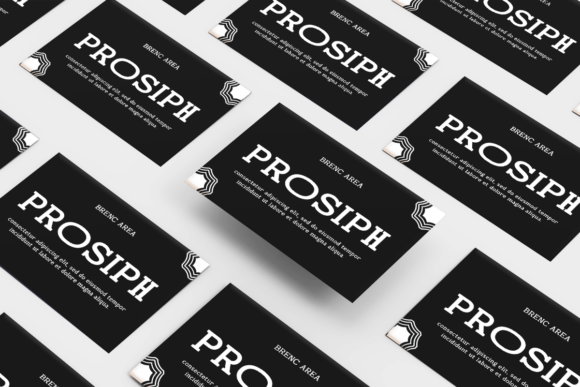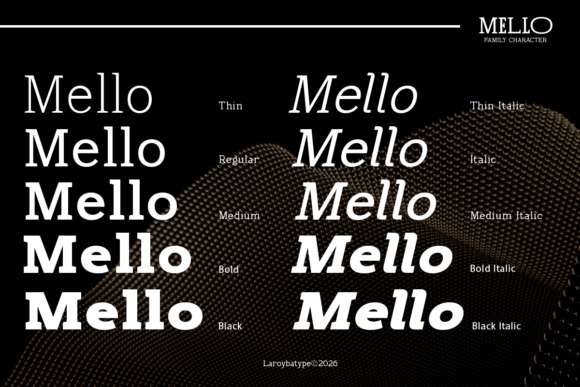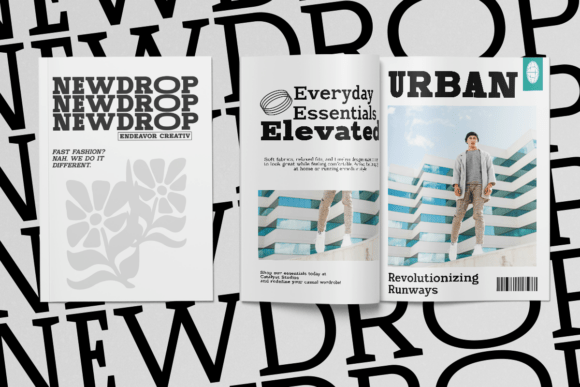
Introduction to Mello Serif Font
You know that moment when a design project clicks into place, and everything feels just right? For many designers, it’s the perfect combination of typography, color, and composition that makes a project truly shine. For those looking to elevate their creative project with high-quality typography, we’re excited to introduce Mello Serif Font, a stunning serif font family that’s about to become your new go-to design resource.
With its clean structure and beautiful contrast, Mello Serif Font is the perfect choice for designers seeking to create high-end visuals. Whether you’re working on a logo, magazine layout, or social media content, this elegant serif font family will give your designs a modern yet timeless feel. Plus, with multiple weights and italic styles included, you’ll have full creative control to build stunning typography effortlessly. And the best part? You can download Mello Serif Font for free, making it an invaluable addition to your design arsenal.
As a valuable resource for designers, Mello Serif Font offers a transparent background and high-quality design that’s sure to elevate any creative project. Whether you’re a seasoned pro or just starting out, this beautiful font family is an essential tool to have in your design kit.
Key Features of Mello Serif Font
- High-quality design resource perfect for creative projects, offering a unique and elegant touch.
- Comes in a transparent background option, allowing for seamless integration into various design elements.
- Features a high-resolution design, suitable for use at various sizes and resolutions, including print and digital applications.
- Part of a comprehensive font family, offering a range of weights and styles to suit different design needs.
- Designed with a focus on readability and legibility, making it an excellent choice for body text and headings.
Honest Review: Mello Serif Font
I recently stumbled upon the Mello Serif Font, and I must say it’s been a game-changer for my creative projects. The first thing that caught my attention was its sleek and modern design, making it perfect for any high-quality design resource.
Here are some features that I love about this font:
- ✨ Versatility: The Mello Serif Font is perfect for a wide range of creative projects, from logos to brochures, and even web design.
- ✨ High-quality design: The font’s modern design and clean lines make it perfect for any professional design project.
- ⚠️ Limited customization options: While the font is beautiful, it’s not entirely customizable, which might be a drawback for some designers.
- ⚠️ No transparent background: If you’re looking for a font with a transparent background, you might be disappointed.
Overall, I’m thoroughly impressed with the Mello Serif Font. It’s a fantastic addition to any designer’s toolkit, and its high-quality design makes it perfect for any creative project. If you’re looking for a free, high-quality font, I highly recommend giving it a try.
Tips for Getting the Most Out of Mello Serif Font
To get the most out of the Mello Serif Font, use it in conjunction with a transparent background to create a high-quality design. Experiment with different font sizes, colors, and styles to find the perfect combination for your creative project.
The Mello Serif Font is ideal for various design projects, including logos, branding materials, and marketing materials. It’s also a great choice for designers who want to create a professional and elegant look for their creative project.
What is the recommended resolution for using the Mello Serif Font in high-quality designs?
Is the Mello Serif Font available in high-resolution formats?
Yes, the Mello Serif Font is available in high-resolution formats, making it suitable for high-quality designs. The font includes a range of resolutions, including 72 dpi, 96 dpi, and 300 dpi, to ensure crisp and clear typography in various design applications.